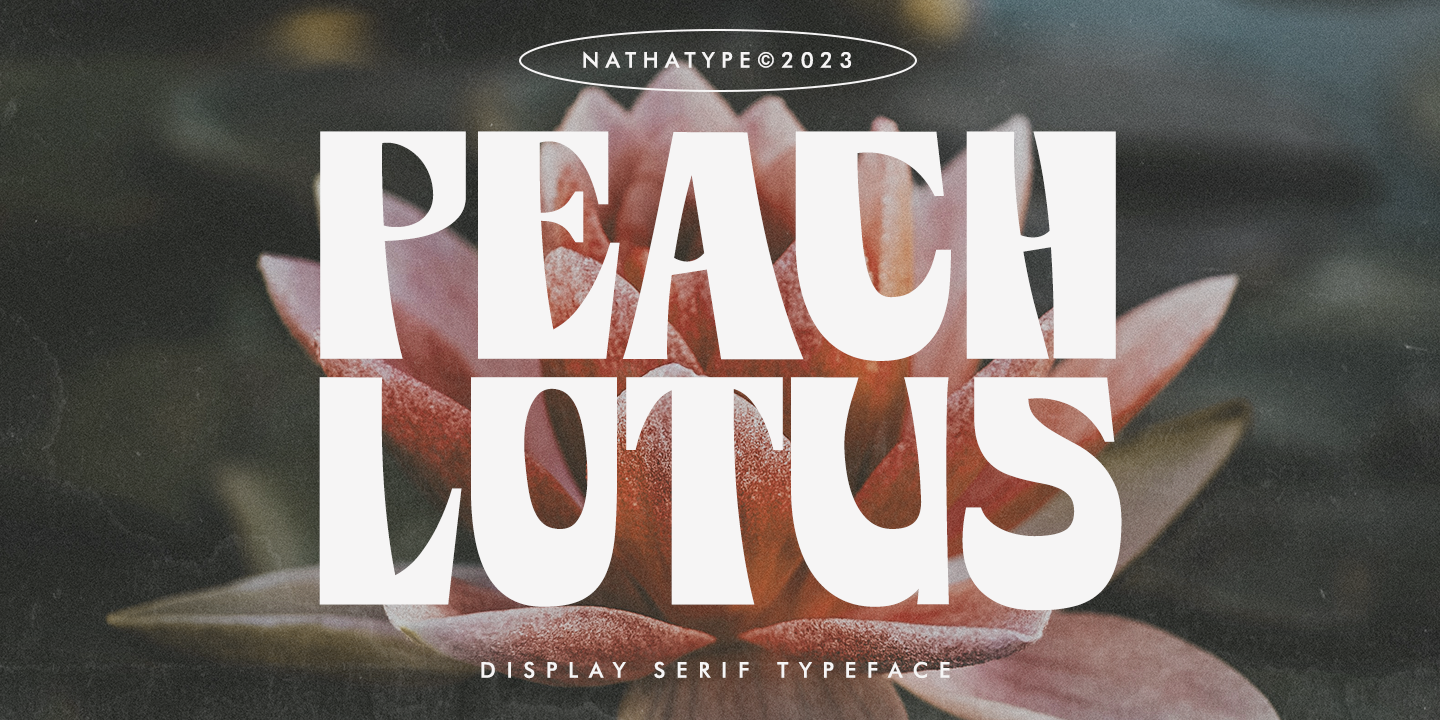
Peach Lotus Font is perfect for various applications including feminine branding, beauty product packaging, wellness center logos, spa and yoga studios, floral design businesses, wedding invitations, organic skincare labels, meditation apps, botanical illustrations, and lifestyle blog headers.
What makes Peach Lotus Font so exciting is its delicate fusion of organic beauty and serene elegance. This enchanting typeface features soft, flowing letterforms with gentle curves and natural-inspired details that evoke the peaceful essence of blooming lotus flowers and warm peach blossoms. The font's harmonious character and tranquil aesthetic make it ideal for brands that want to convey natural beauty, mindfulness, and gentle sophistication to audiences who appreciate wellness, self-care, and organic lifestyle choices.
Peach Lotus Font family includes multiple weights and styles: Thin, Light, Regular, Medium, Bold, Script, Condensed, Extended, and gracefully flowing Italic variants. Each family member maintains the font's signature serenity while offering different levels of visual impact and stylistic flexibility for diverse wellness and beauty applications.
The Peach Lotus Font Free Download offers designers access to a nature-inspired typeface that excels in wellness and beauty markets. Whether you're creating organic brand identities, designing mindfulness marketing materials, or developing serene digital experiences, this font delivers the peaceful aesthetic needed to connect with health-conscious consumers. Its gentle styling and contemporary refinement make it particularly effective for wellness services, natural products, and mindful lifestyle brands.
Typography enthusiasts will appreciate the organic flow and natural rhythm in Peach Lotus Font's design. The font features carefully crafted letterforms with smooth curves, optimized spacing, and perfectly balanced proportions that ensure exceptional readability while maintaining its tranquil character. From intimate body text to calming headlines, this typeface maintains its serenity and natural beauty across all design contexts.
For wellness web designers, Peach Lotus Font provides outstanding performance in mindful digital environments and mobile applications. The font's technical specifications are optimized for modern devices while preserving the soft, organic edges that define its peaceful character. Its versatility makes it suitable for both static content and interactive wellness experiences.
Creative professionals working in beauty, wellness, organic products, and lifestyle sectors will find Peach Lotus Font to be an indispensable tool for projects requiring gentle visual communication. The font's ability to convey tranquility, natural beauty, and mindful living makes it invaluable for brands targeting wellness-conscious demographics.